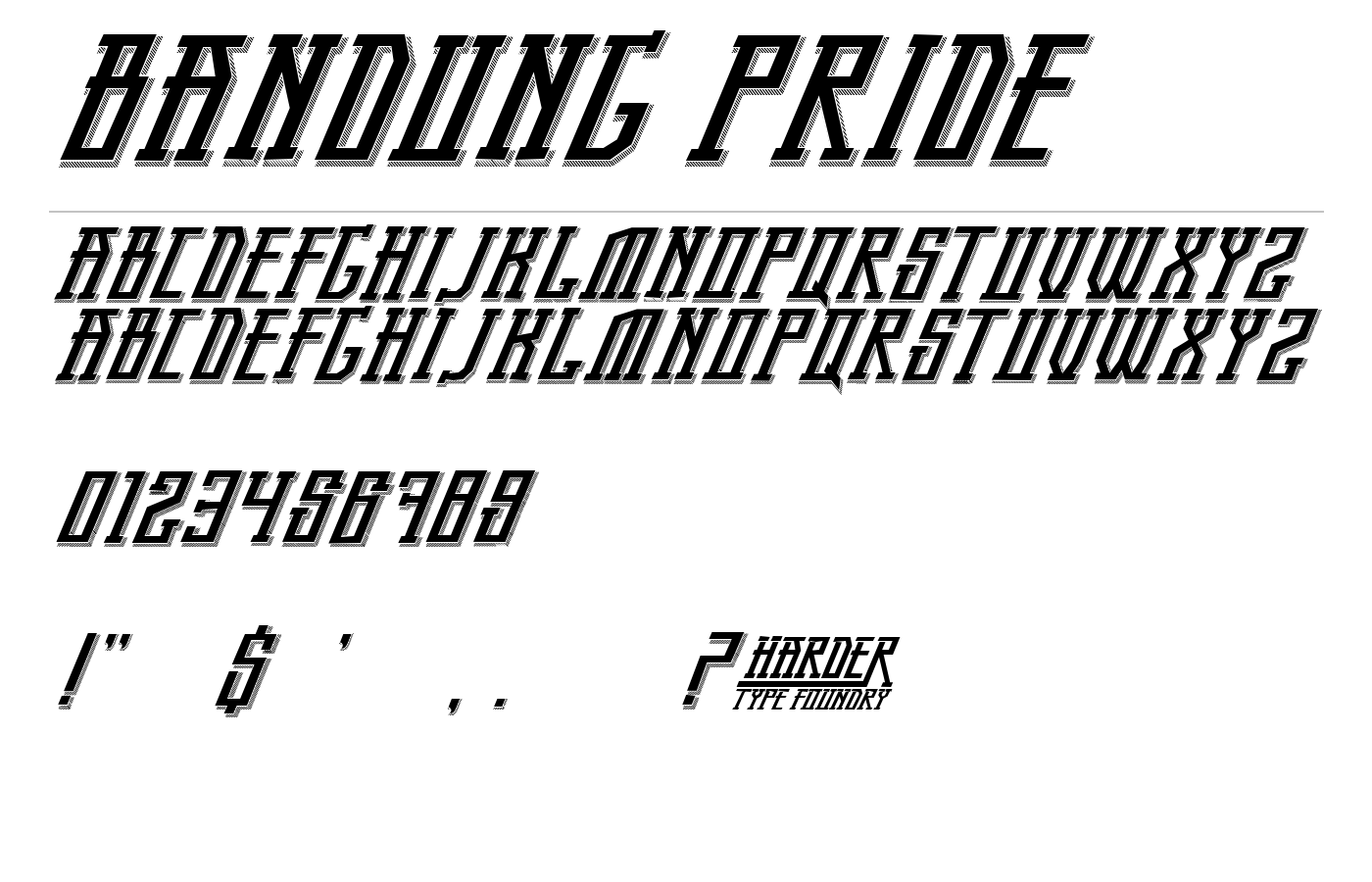
Bandung Pride is a bold, condensed display font with a dynamic, italicized stance that conveys energy and movement. Its sharp, angular strokes combined with a layered shadow effect create a striking, vintage sports or industrial vibe, making it perfect for eye-catching headlines, posters, and branding that demands a strong, confident presence. This font works best in contexts where a bold, dramatic statement is needed, such as logos or promotional materials for active, adventurous, or retro-inspired brands.
Bandung Pride Font
About Bandung Pride Font
| Font family | Bandung Pride Font |
| Designer | dede mulyadi |